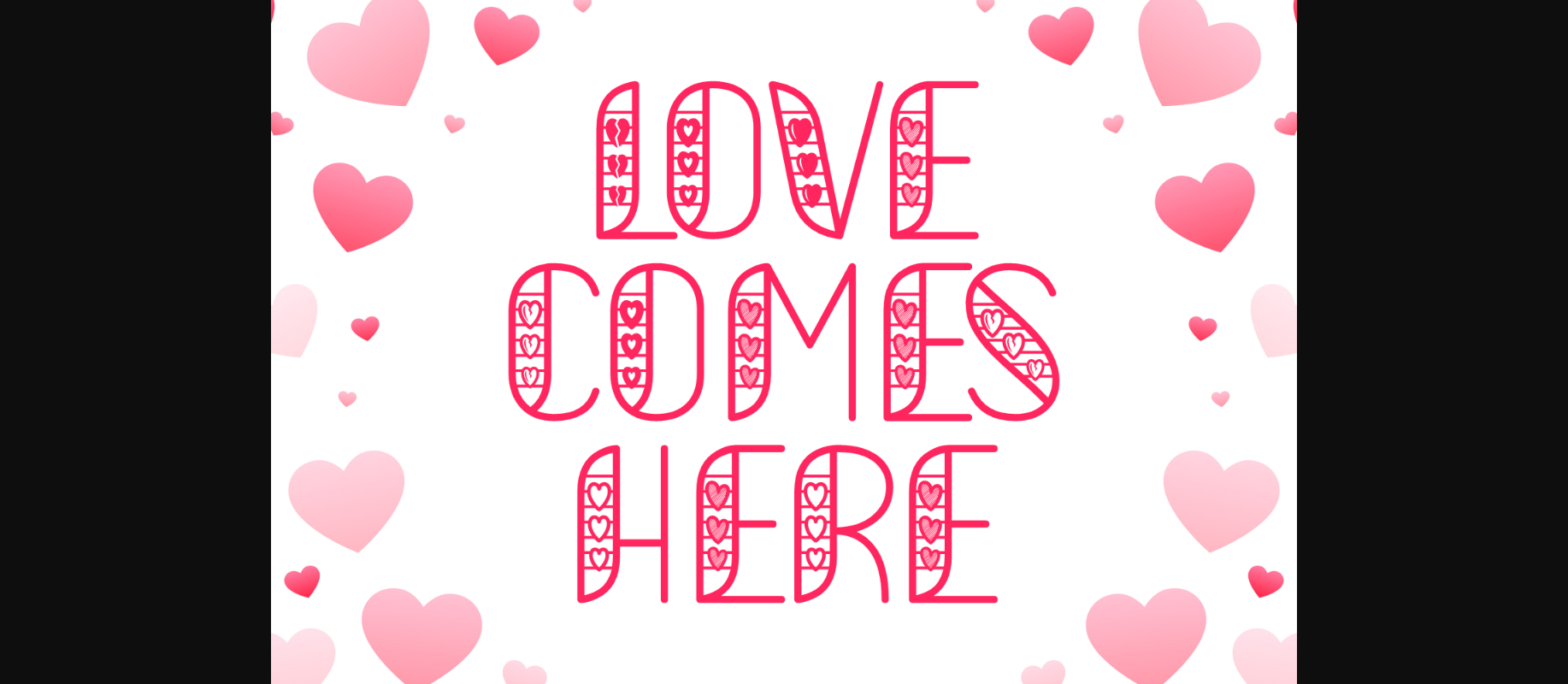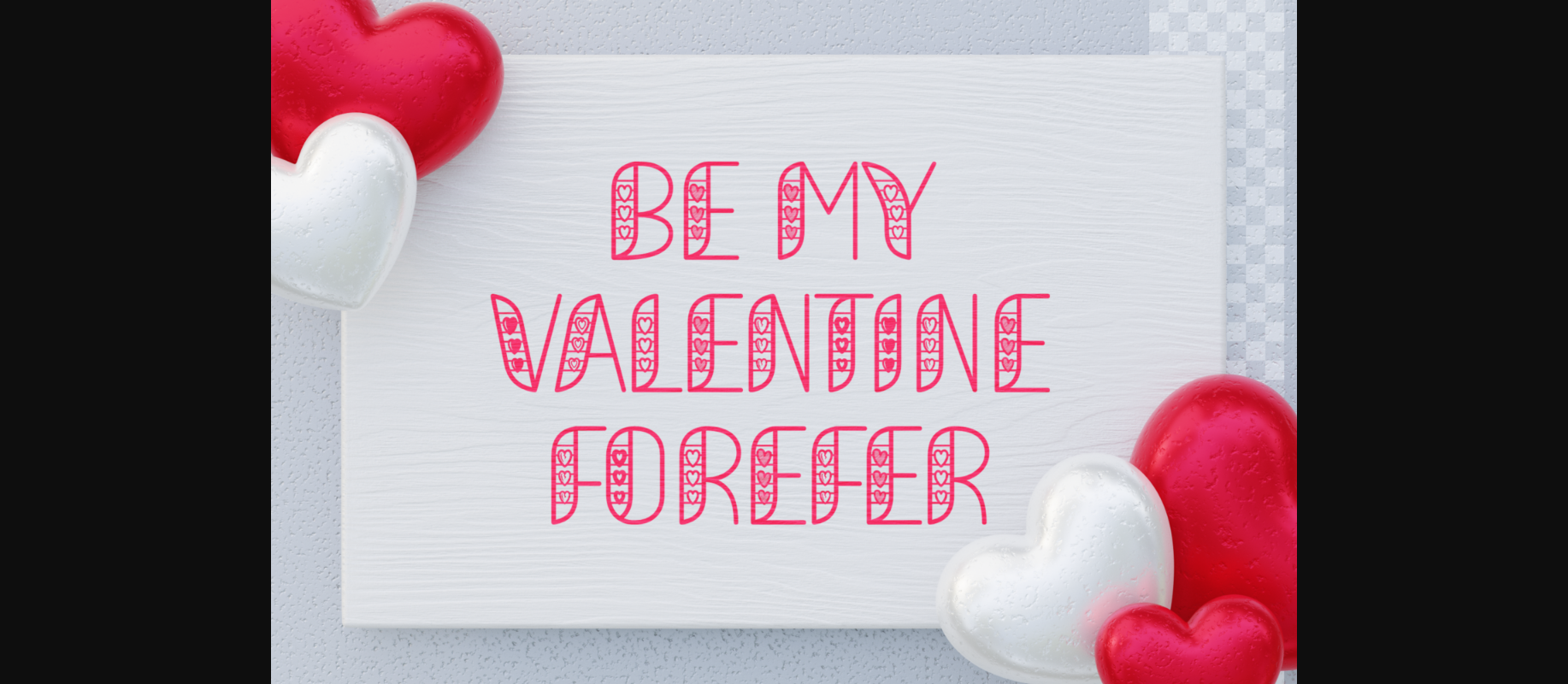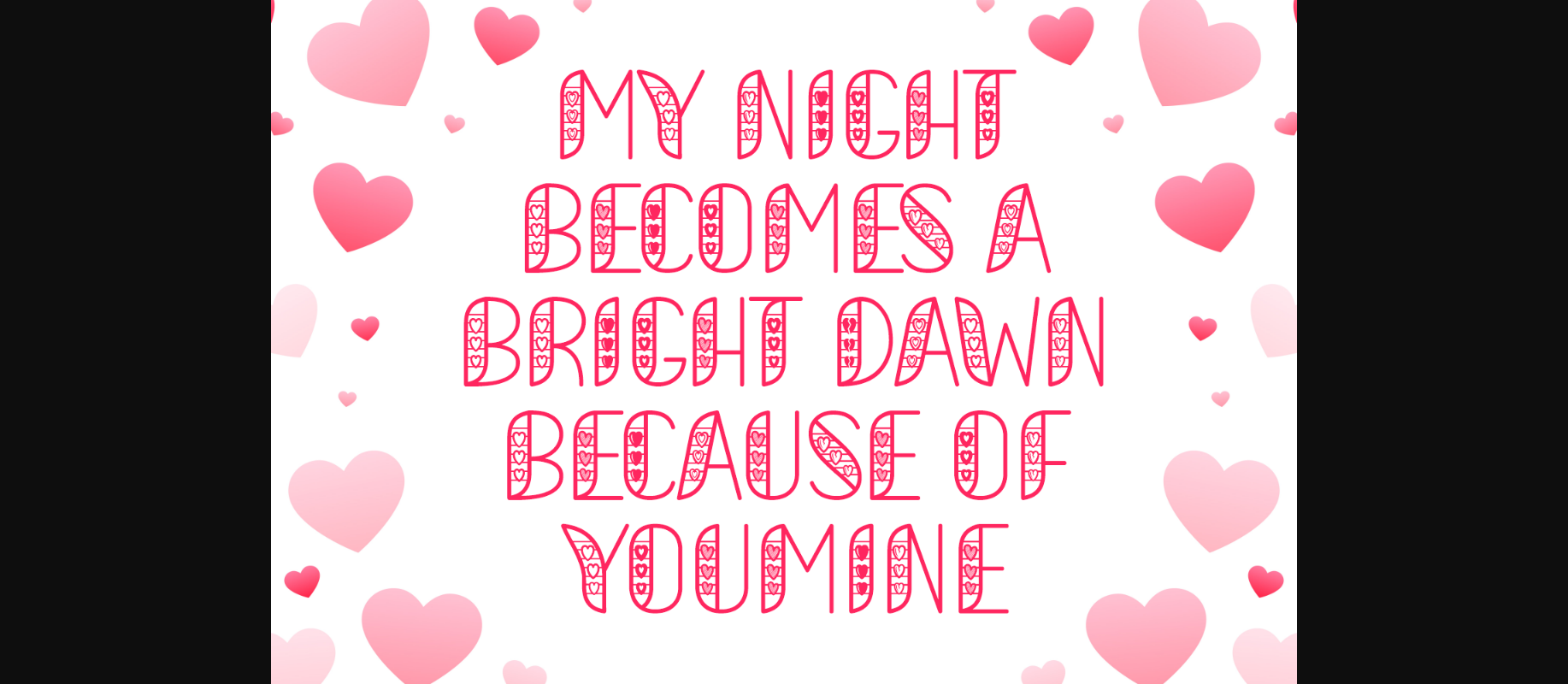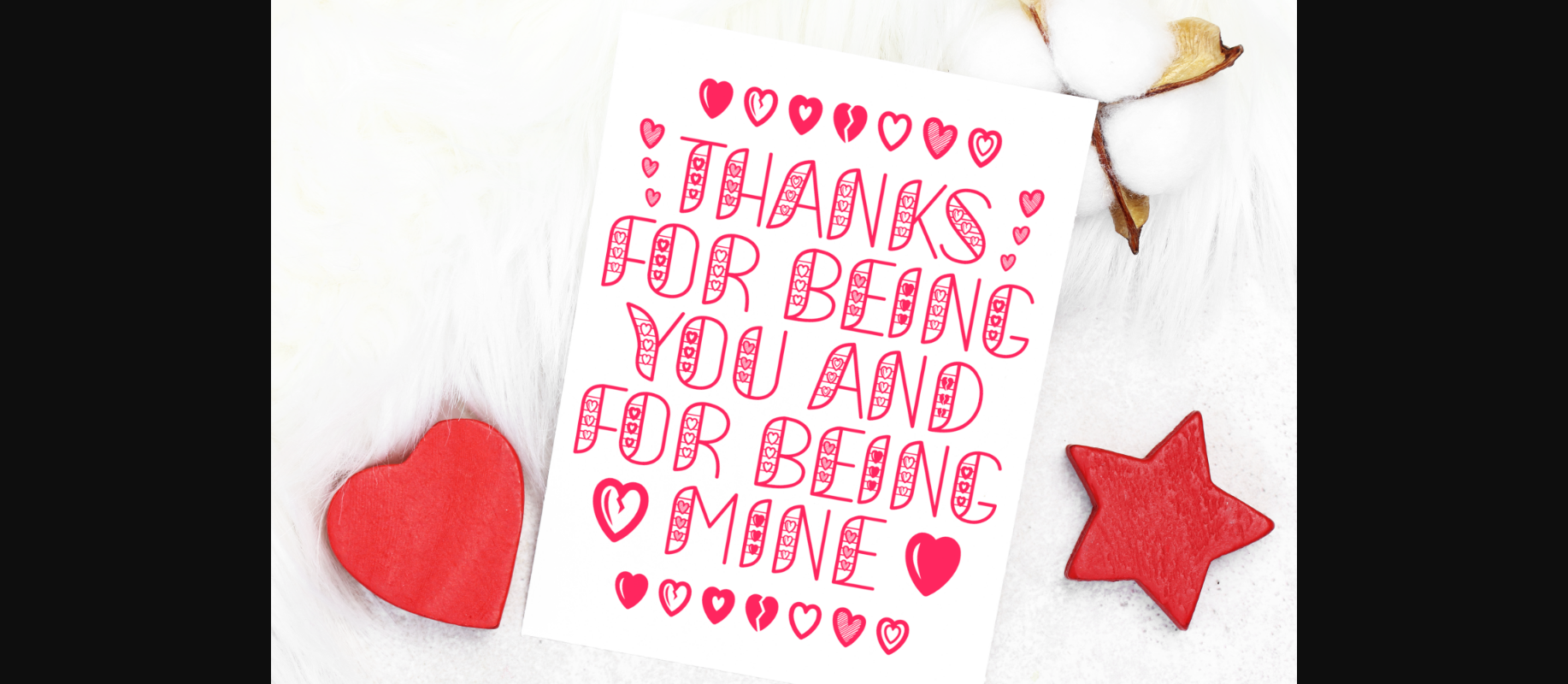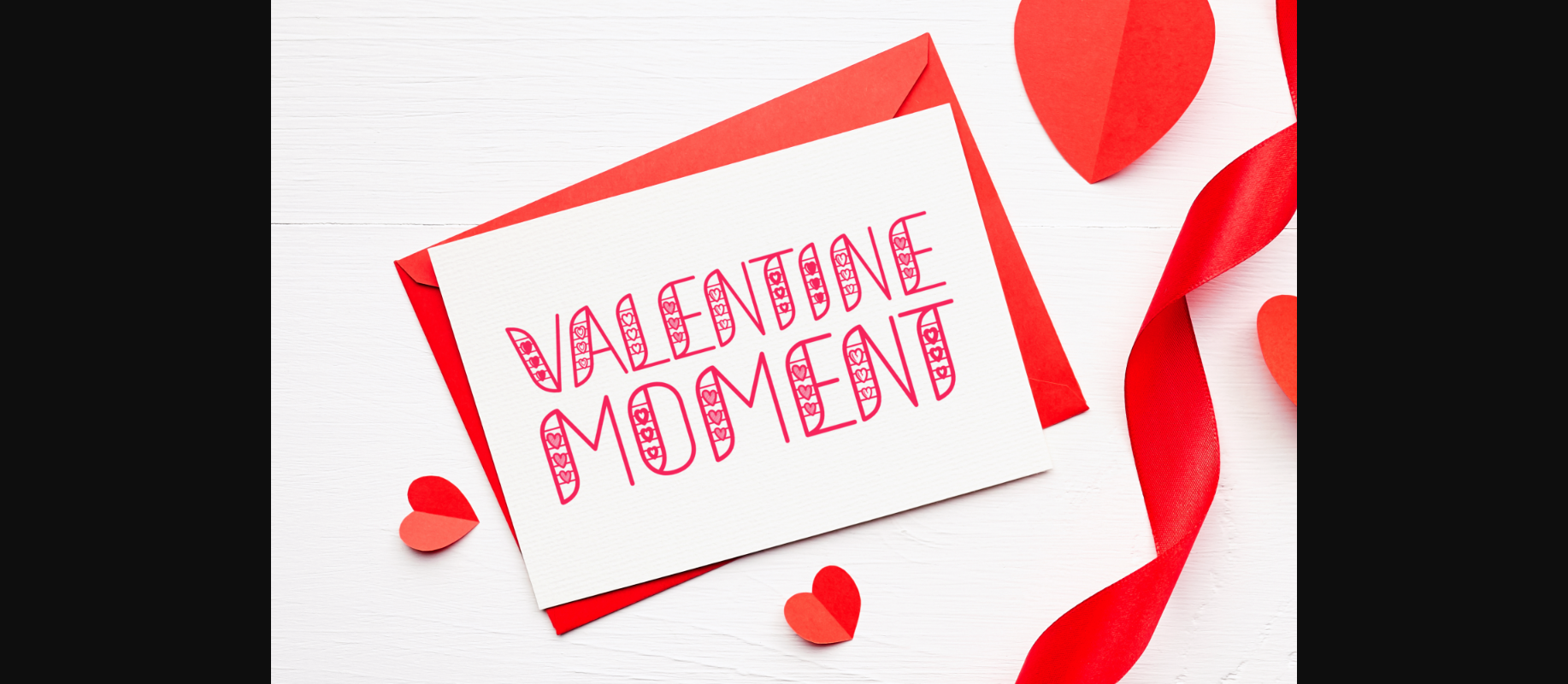
Love Comes Here Font
About Love Comes Here Font
Love Comes Here is a heartwarming decorative font that spreads joy with its delightful touch. Adorned with charming little hearts, this font adds a sweet and playful element to your designs. Perfect for expressing love and happiness, it’s an ideal choice for invitations, greeting cards, and any project that needs a touch of affection. Let Love Comes Here infuse your creations with warmth and whimsy, making every word a celebration of love.